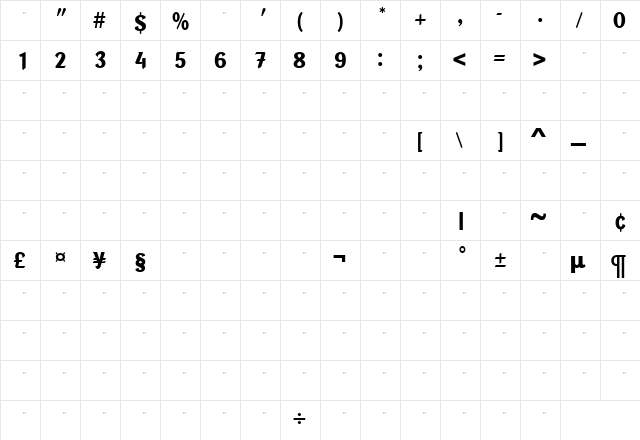
PortobelloDemiTab Roman
Design Context for PortobelloDemiTab Typeface
PortobelloDemiTab offers clean, dependable letterforms without strong stylistic allegiance, making it a practical choice for designers who need flexibility.
Pro Tip: Use PortobelloDemiTab in both headline and body roles to test its range before committing to a single application.